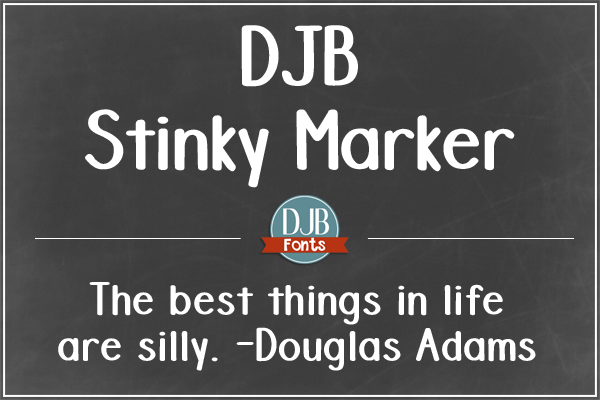
Font name: | DJB Stinky Marker |
A bold hand drawn font that's great for content, headlines and other marketing materials. It also includes European language characters. This font is free for personal use only. Please purchase a commercial use license at: http://darcybaldwin.com/commercial-use/ https://www.facebook.com/DarcyBaldwinFontography |